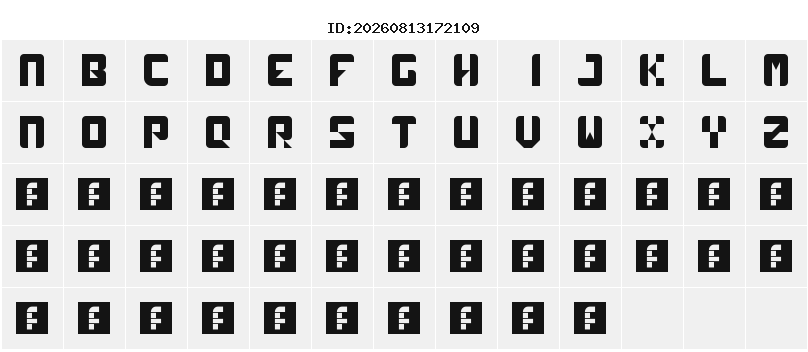
sympul Preview
• Font Name: sympul
• Font ID: FontStruct sympul
• Full Font Name: sympul Regular
• PostScript Name: sympul
• Character Count: 27
• Designer: askleo
• Description: ‚Äúsympul‚Äù was built with FontStruct
About sympul.ttf
sympul.ttf is a modern, elegant sans-serif font designed for ultimate readability and visual harmony. Perfect for branding, headlines, web design, and print materials.